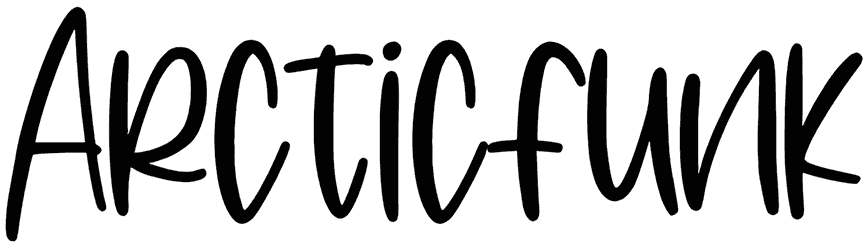
Arcticfunk Font
Engage in a true sense, and love script fonts, find the amazing best of them in this most delinquent collection offered by RB! Arcticfunk, with comfy, playful characters, is one of those chances that not everyone gets.
This all-caps handwritten font holds a funny essence that can be set on greeting cards, storybook covers, invitations, vision games, and the like to shine and warranty a booming effect.